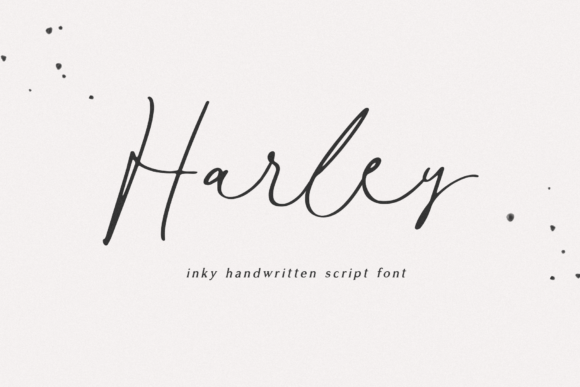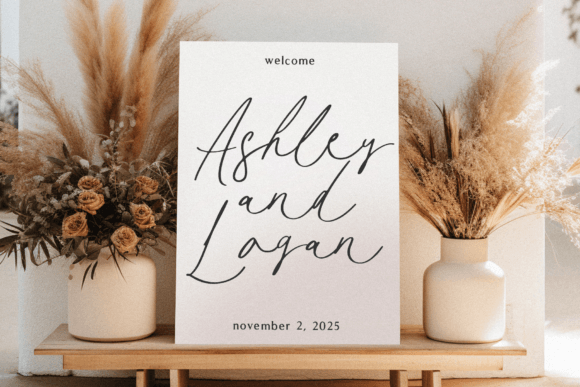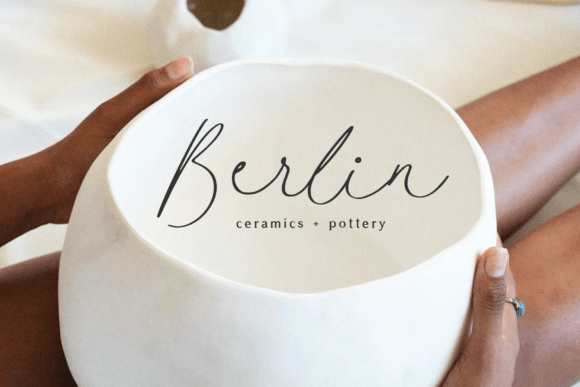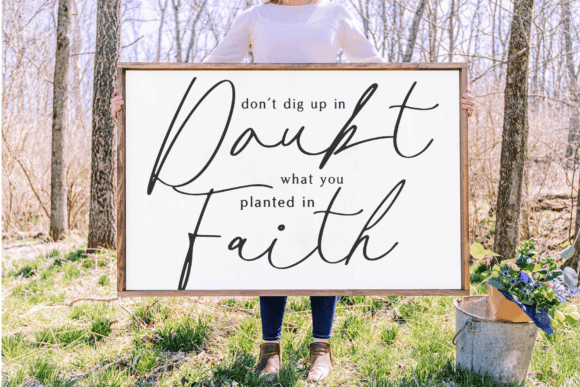
Harley Font
About the Harley Font
Presenting Harley Font, a unique and stylish typeface that will make your work stand out. Harley is a handwritten script font in an inky farmhouse style! This font is sure to bring a touch of beauty to all of your craft projects. This font has an authentic handwriting look, making it perfect for logos, crafts and print. Harley is a font that you will find yourself using over and over again!
Harley’s inky farmhouse style lends itself well to projects requiring a rustic, handcrafted feel. Ideal applications include short headlines, logos for artisanal businesses, wedding invitations, and packaging for food products or handmade goods. Avoid using Harley for large blocks of text or UI elements; its informal nature and varying letterforms make it less legible at smaller sizes or in continuous paragraphs.
The font’s personality is best described as friendly and approachable, yet with a touch of rustic charm. This makes it suitable for brands that want to convey authenticity and a connection to traditional craftsmanship.
Pairing Harley with a clean sans-serif like Lato for body text or a geometric sans-serif like Montserrat for headlines creates a pleasing contrast, balancing the handwritten informality of Harley with a modern, readable element. For a more traditional feel, consider pairing it with a classic serif font like Garamond.